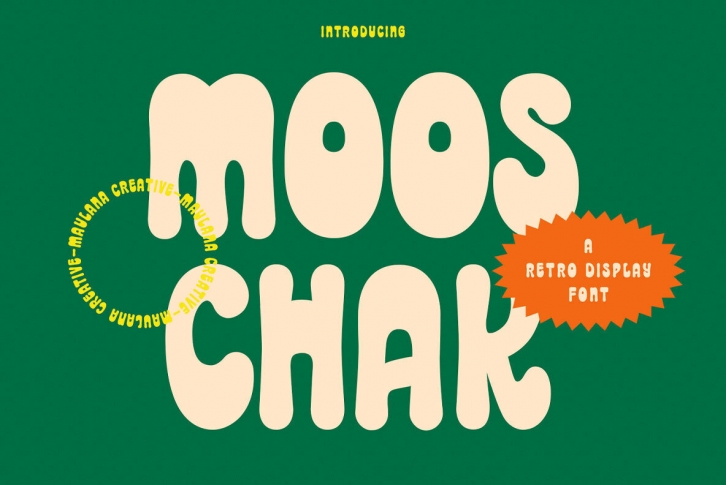
Mooschak is a fun and creative font that will add some spice to your work. With its bold contrast strokes, MooschaK offers an extra layer of creativity for whatever you need it in.